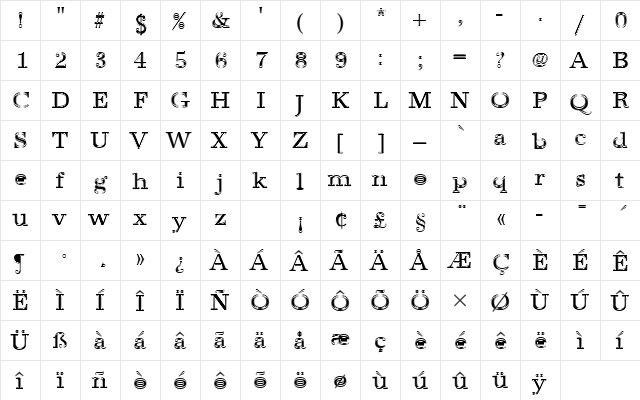
URWAntiquaTRegIn1 Regular
Design Context for URWAntiquaTRegIn1 Typeface
URWAntiquaTRegIn1 offers clean, dependable letterforms without strong stylistic allegiance, making it a practical choice for designers who need flexibility.